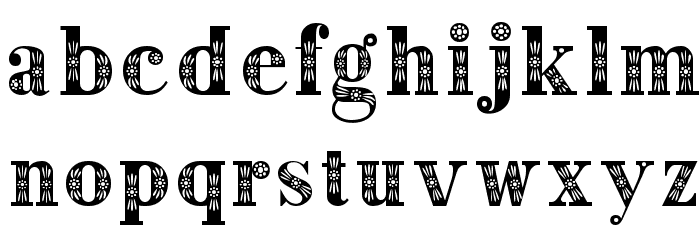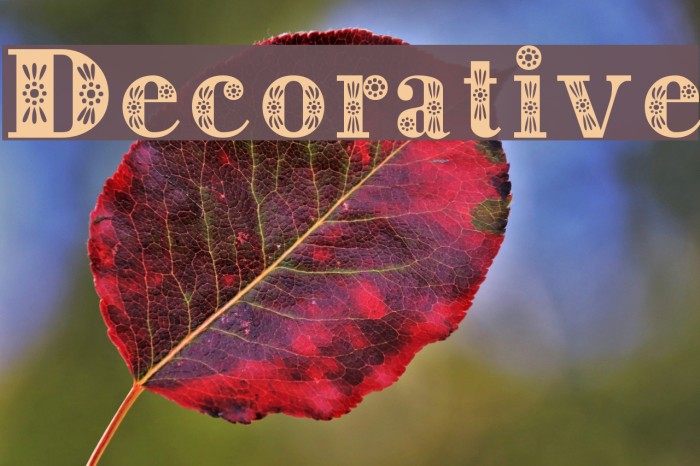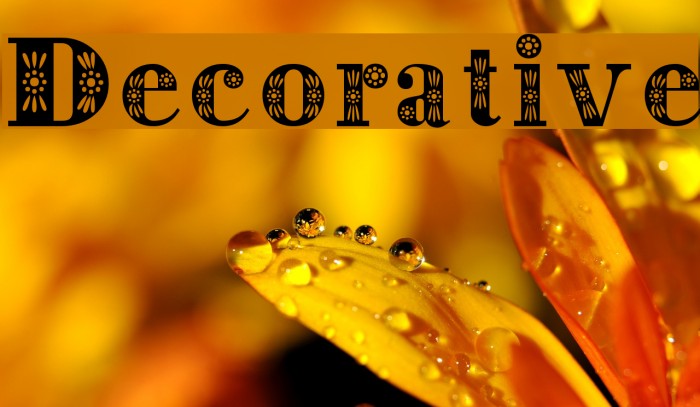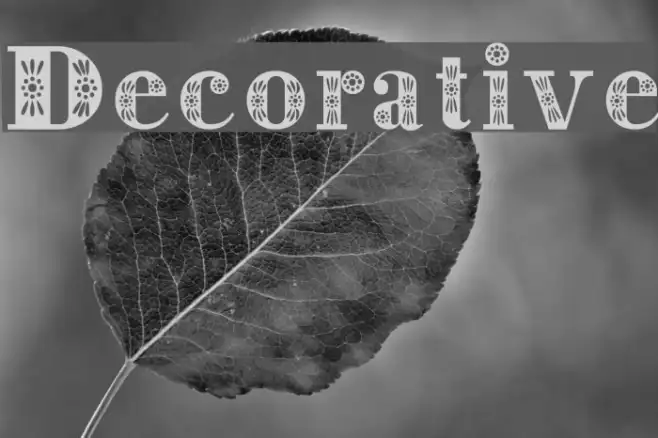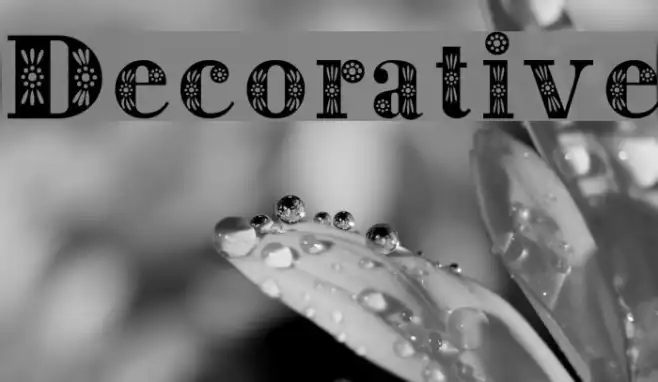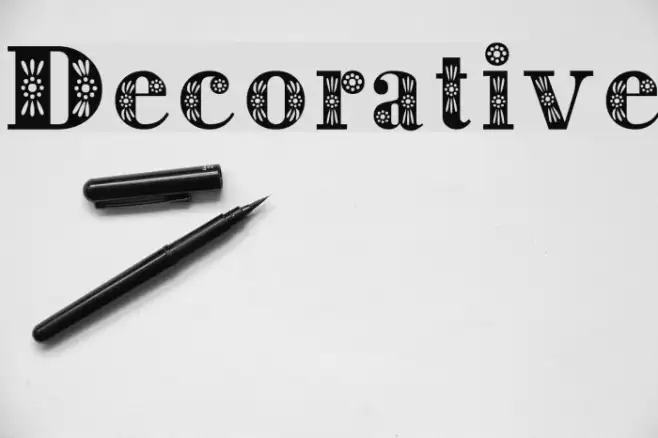
Decorative Font
This font features a highly decorative style with intricate patterns embedded within each character. The uppercase and lowercase letters, as well as numbers and special characters, are adorned with floral and geometric motifs, creating a visually striking appearance. The bold and artistic design makes it ideal for capturing attention and adding a unique flair to any project. The characters are well-defined, with consistent ornamentation that enhances their aesthetic appeal. This font is perfect for creative projects that require a touch of elegance and sophistication.
A decorative font with intricate floral and geometric patterns.
- Proposed Projects: Ideal for wedding invitations, event posters, artistic branding, and decorative signage.
- Use Case: Headlines, Logos, Artistic projects